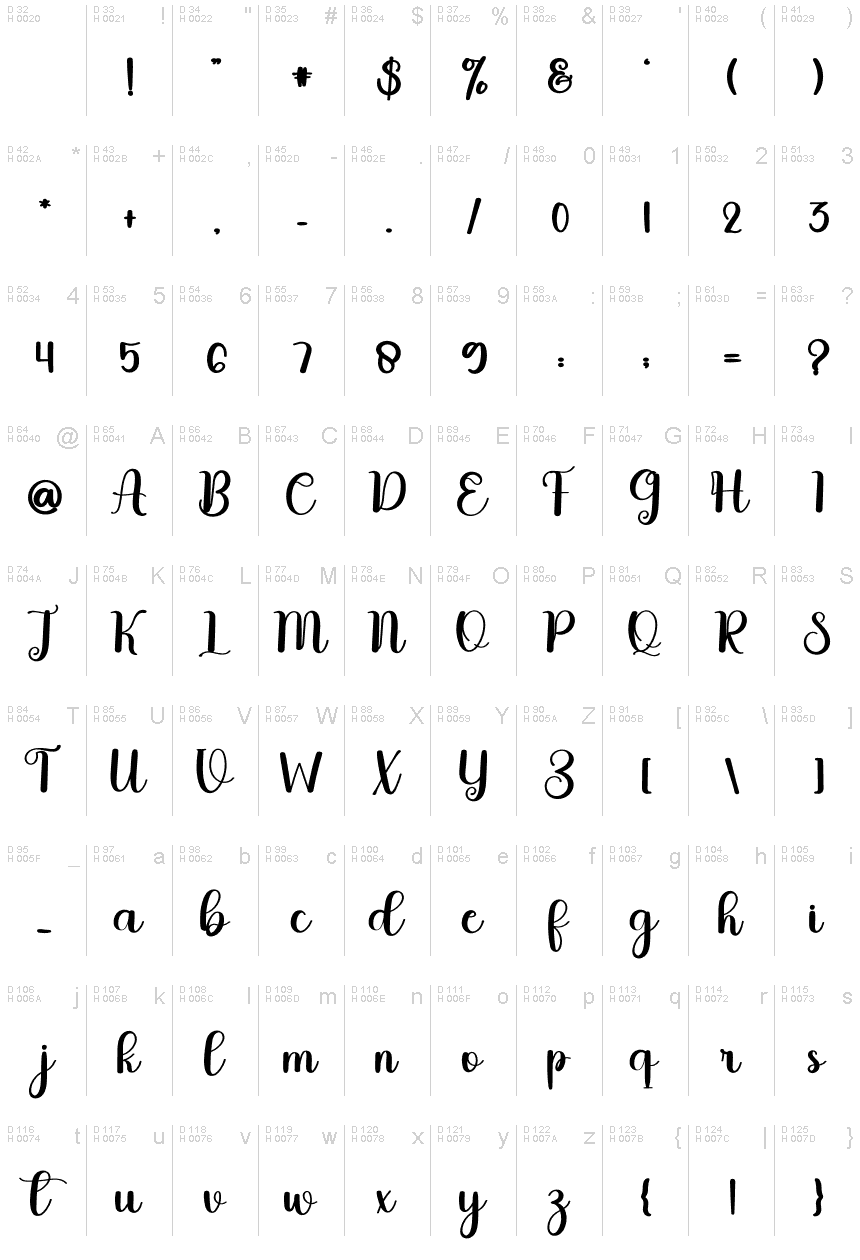
Miniature
Miniature, a captivating calligraphy font crafted by Inermedia Studio, evokes an air of elegance and sophistication. With its graceful curves and intricate details, this font effortlessly adds a touch of refined beauty to any design project.
Its versatility makes it suitable for various creative endeavors - from wedding invitations and luxury branding to book covers and personalized stationery. Whether you're aiming for a vintage aesthetic or a contemporary feel, the Miniature font will effortlessly elevate your designs with its timeless charm.
Let your imagination soar as you explore the endless possibilities offered by this exquisite typeface.